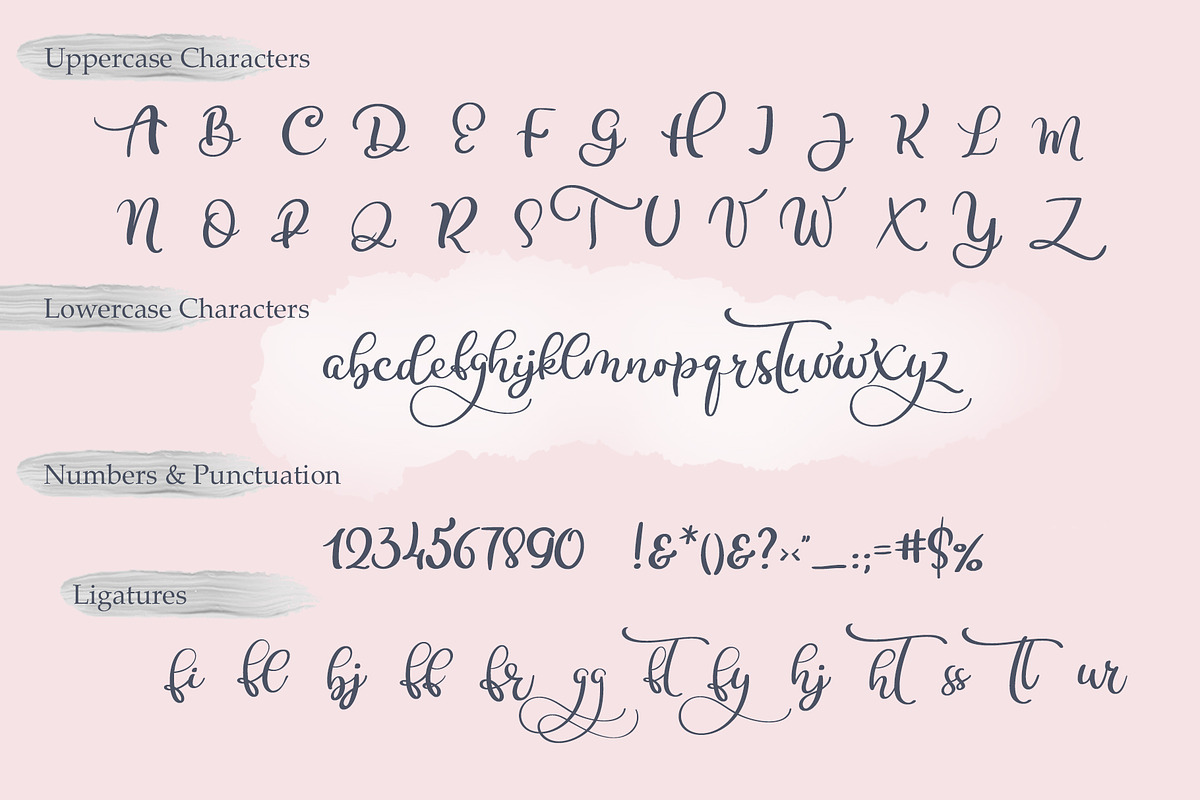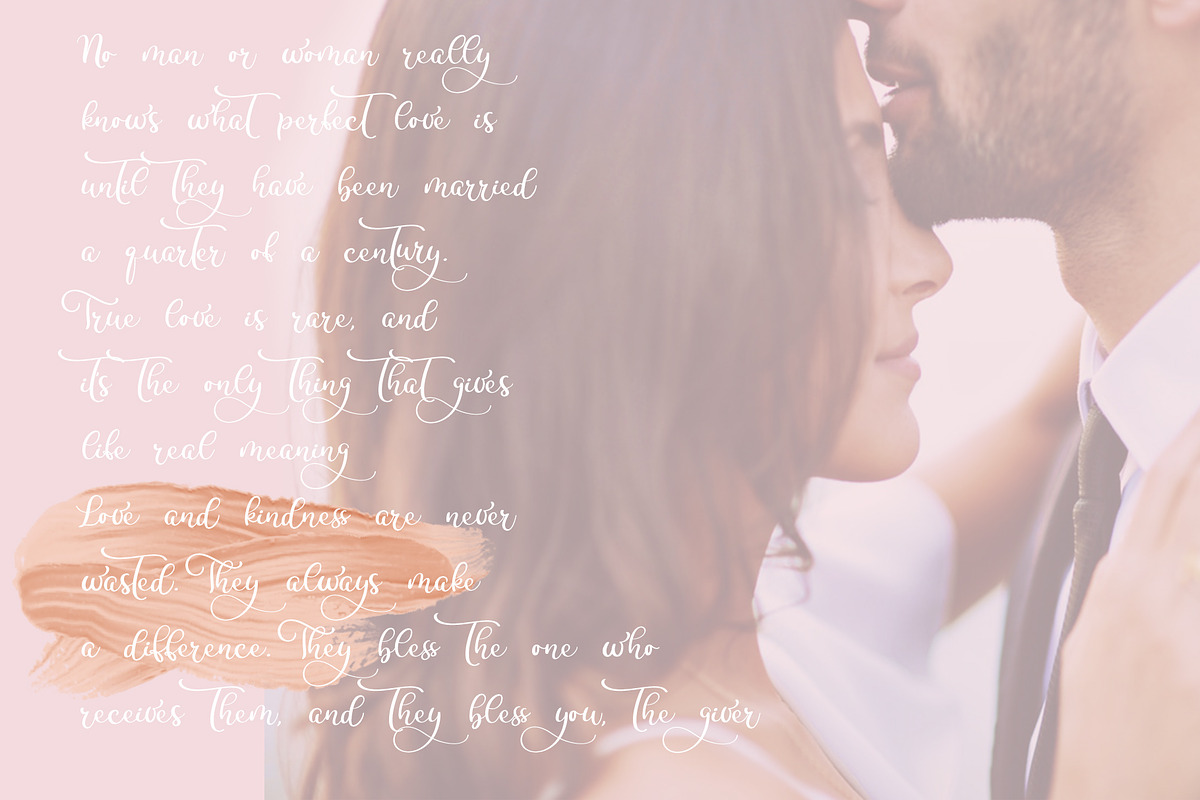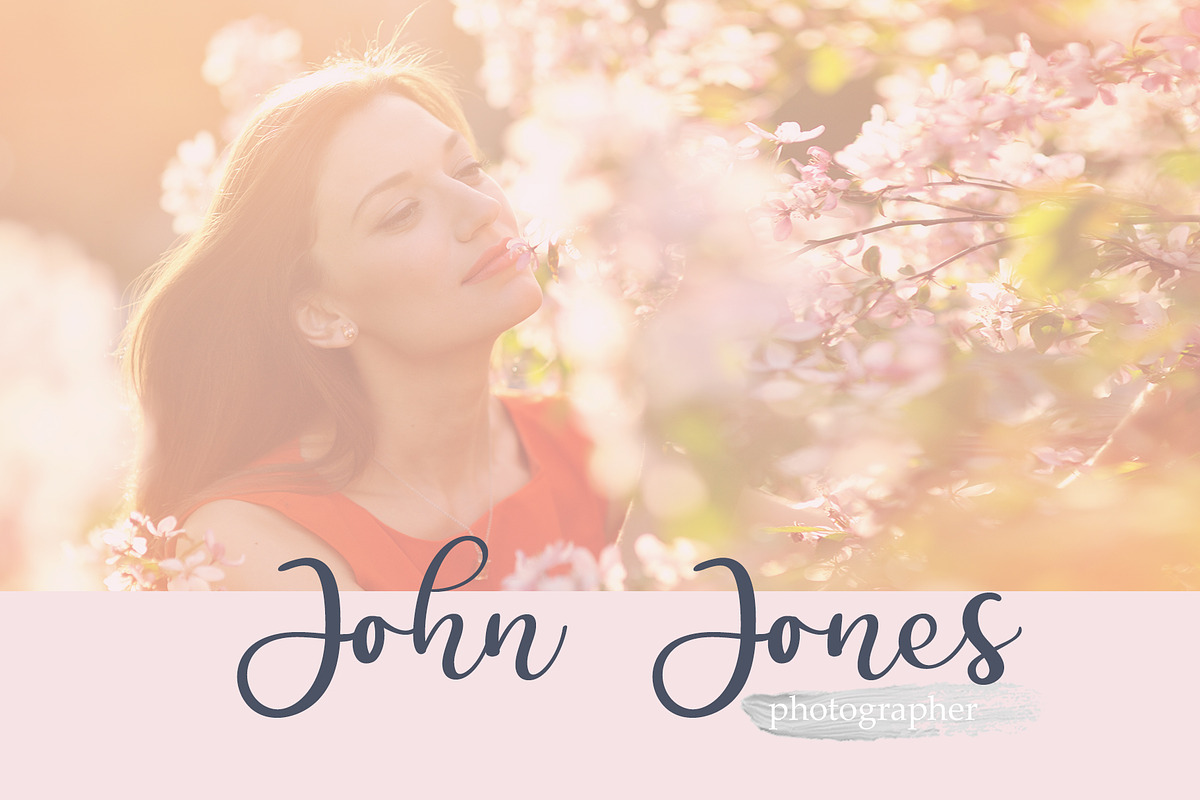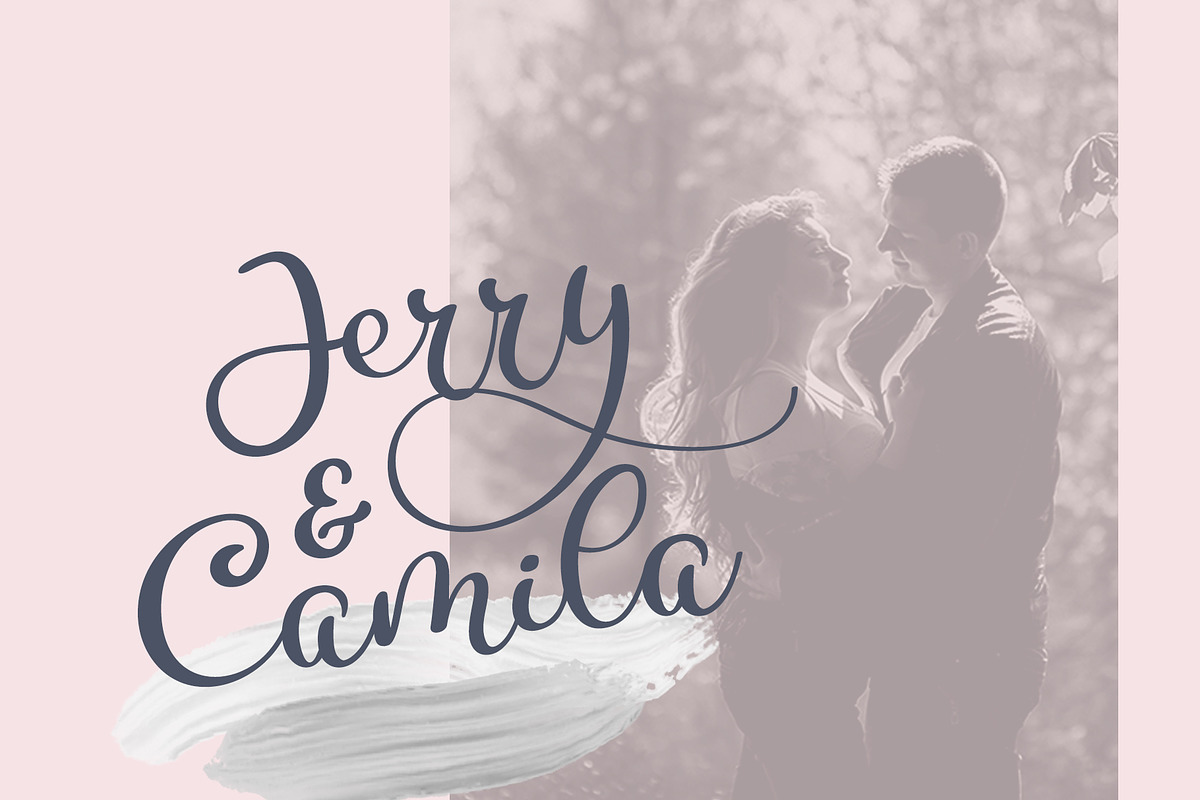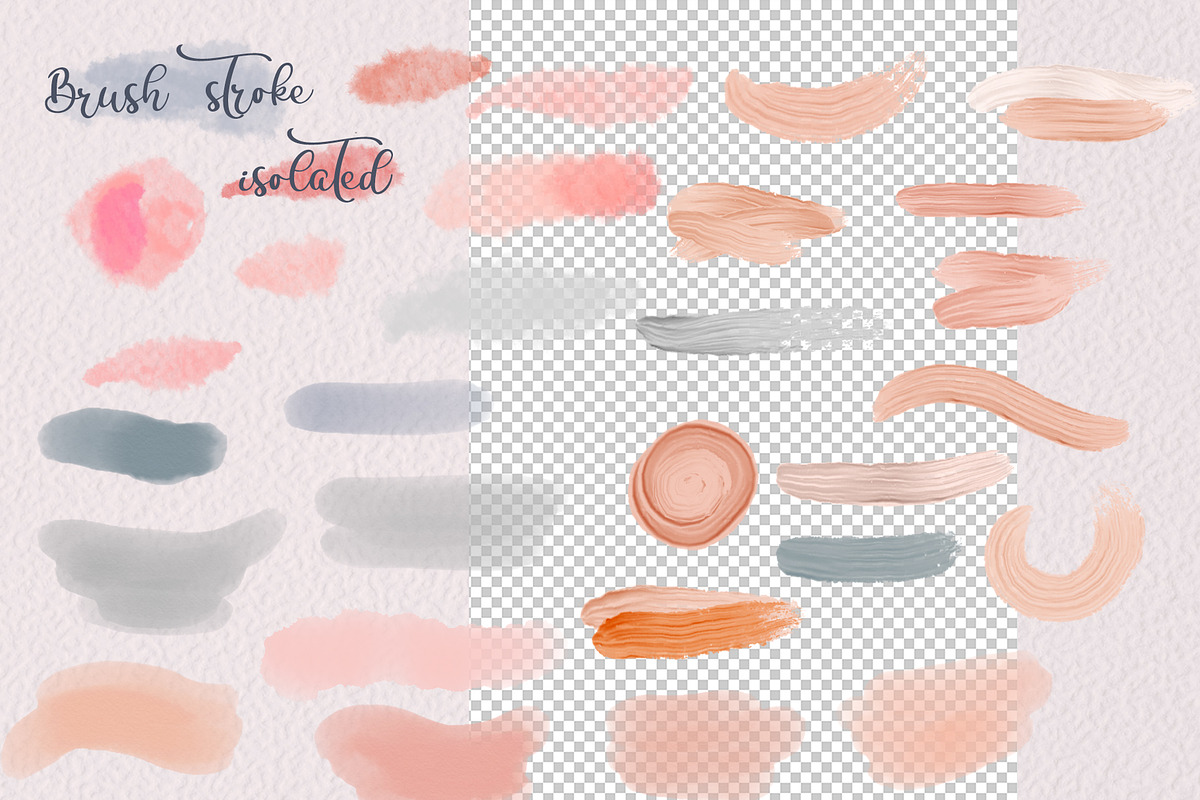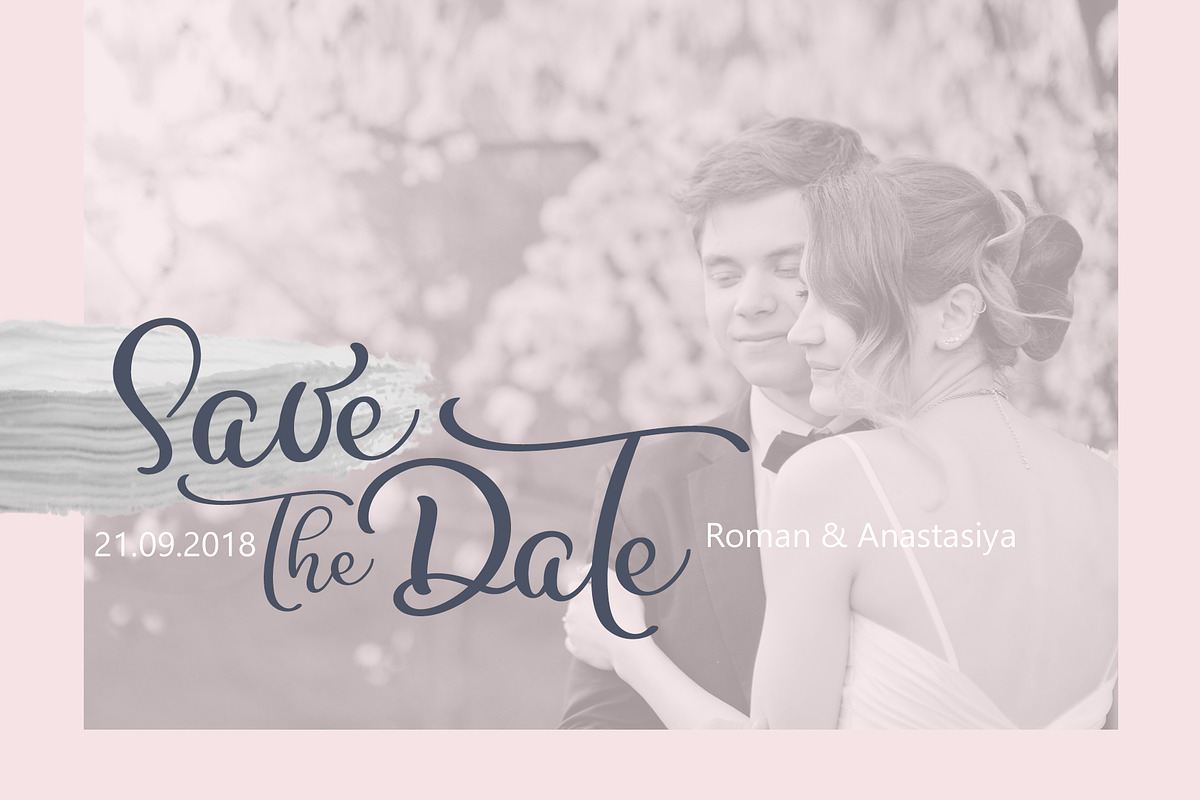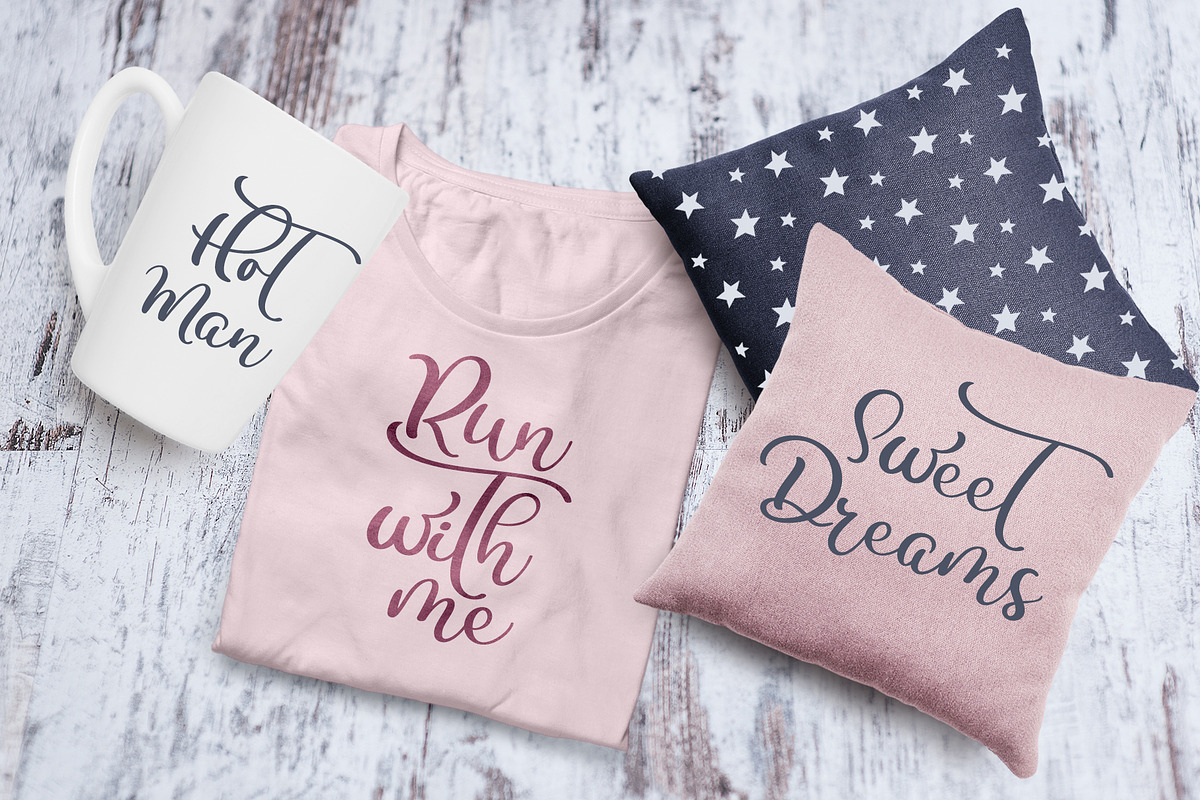
Calligraphy Wedding Font Delight
You can see beautiful holidays and wedding handwritting calligraphy font Delight. Unique handmade calligraphic font Delight is best for many holiday goals: calligraphy invitation on wedding, anniversary, birthday and other.
PERFECT FOR Titles for wedding invitations, greeting cards (Christmas, Birthday, other holidays), photo overlays, logos, phrases, gift shops, social presentation, Pinterest or Instagram and many, many other way.
Why Calligraphy Wedding Font Delight is worth a look
Calligraphy Wedding Font Delight by Happy Letters fits naturally into Branding, posters, packaging, typography.